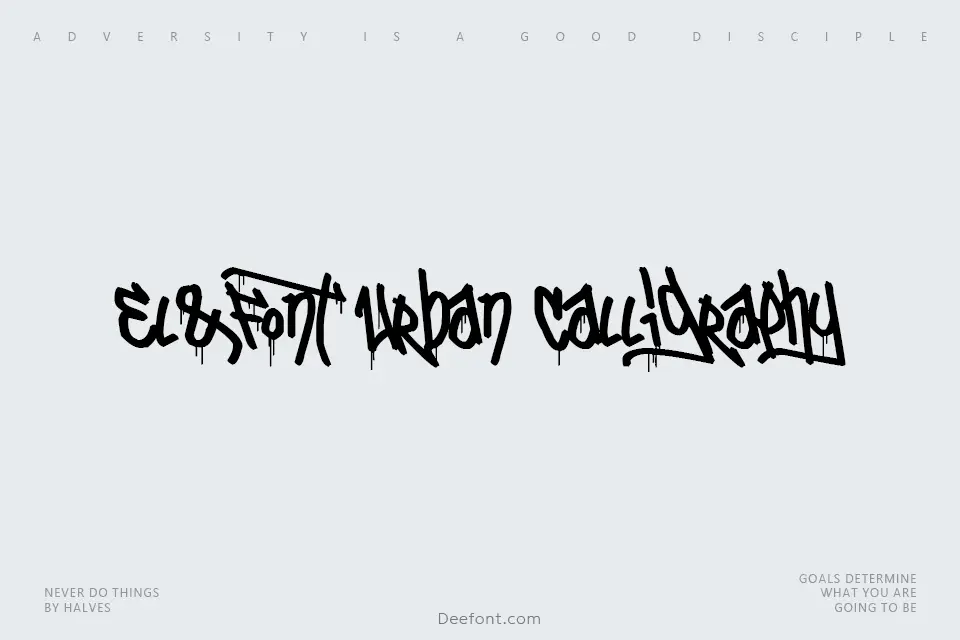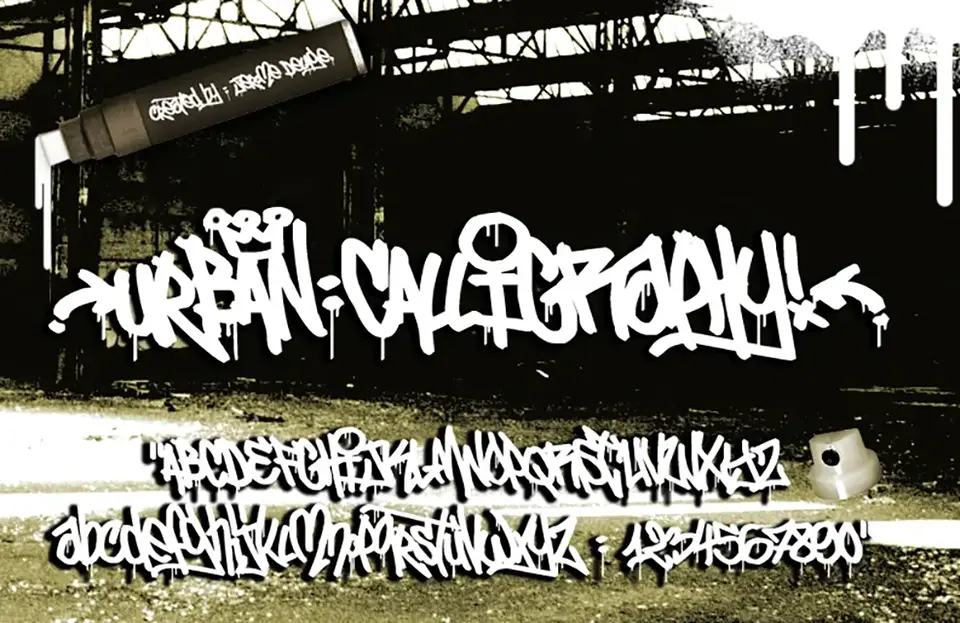
El&Font Urban Calligraphy Font
El&Font Urban Calligraphy is a dynamic graffiti-inspired script font designed by Jérôme Delage. This energetic typeface seamlessly blends urban vibes with artistic flair, featuring bold and impactful letterforms that retain remarkable softness and readability. With its contemporary calligraphic style, this font excels in creating eye-catching headers, titles, posters, and graphic design projects. The raw, rebellious aesthetic makes it perfect for street art-inspired designs, product packaging, and creative branding initiatives that demand a distinctive, artistic presence.